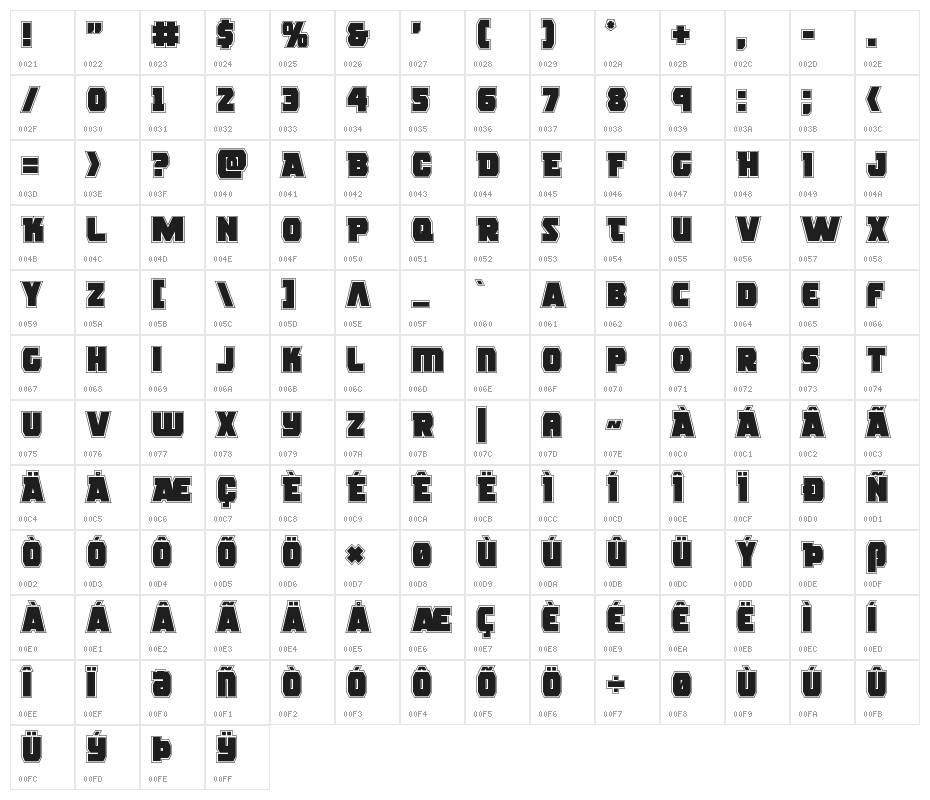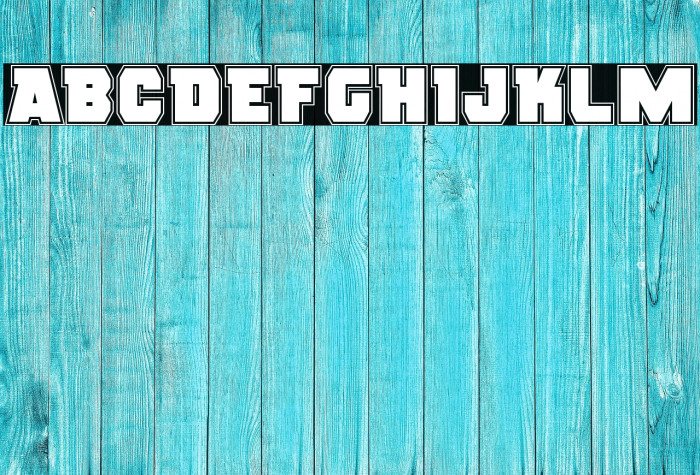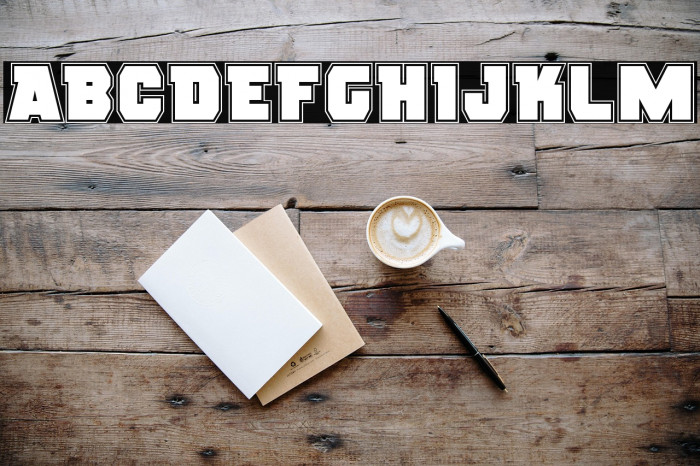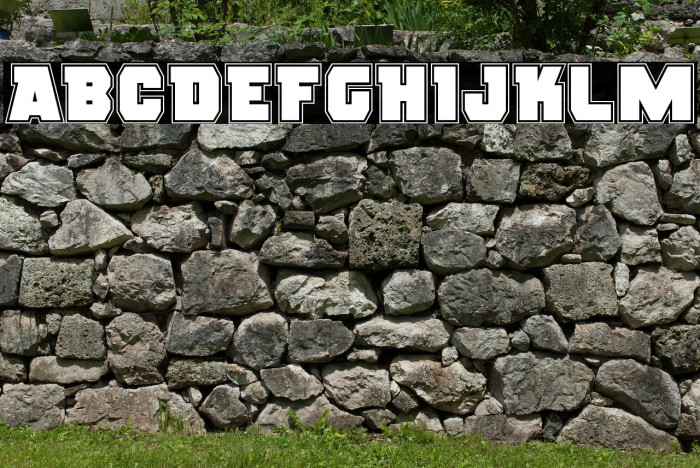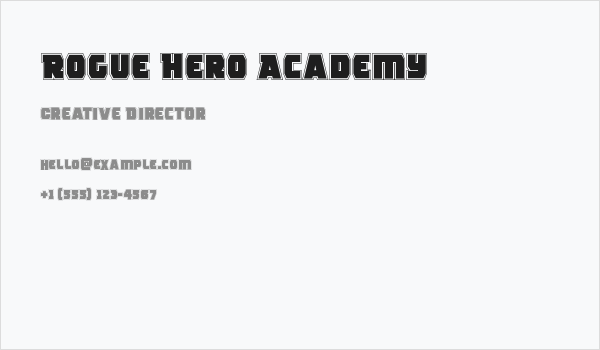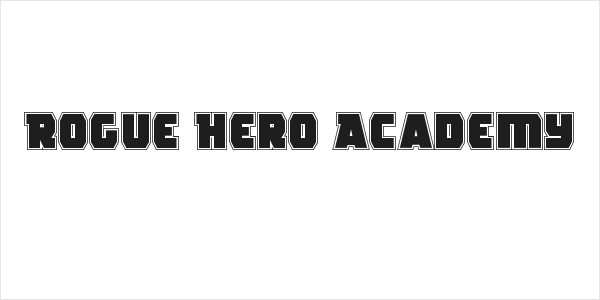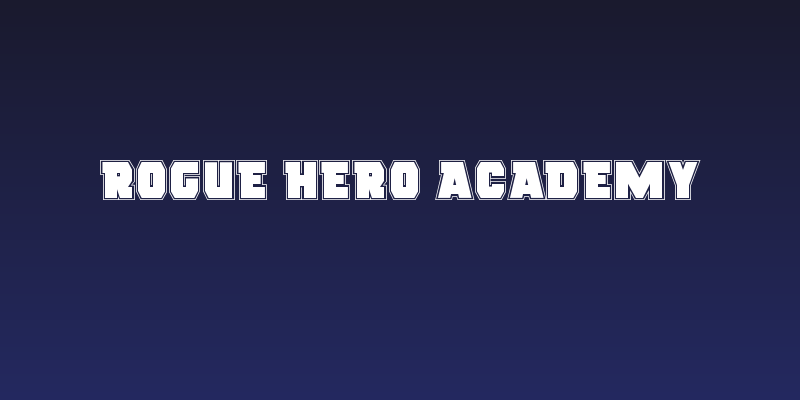
Rogue Hero Academy Font
Rogue Hero Academy Description
This font features a bold, geometric design with a strong presence. The characters are blocky and angular, giving a sense of strength and stability. The thick strokes and sharp edges create a dynamic and impactful look, making it ideal for attention-grabbing headlines or titles. The uniformity in the design ensures consistency across all characters, while the bold outlines add an extra layer of emphasis. The font's style is reminiscent of retro arcade games or comic book titles, providing a nostalgic yet modern appeal.
Proposed ProjectsIdeal for video game titles, comic book covers, posters, and branding that requires a strong, impactful presence.